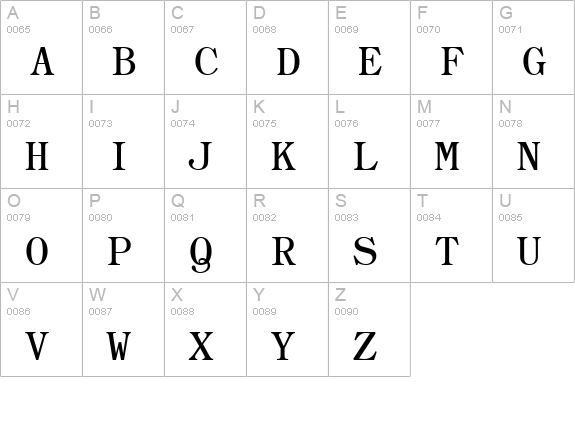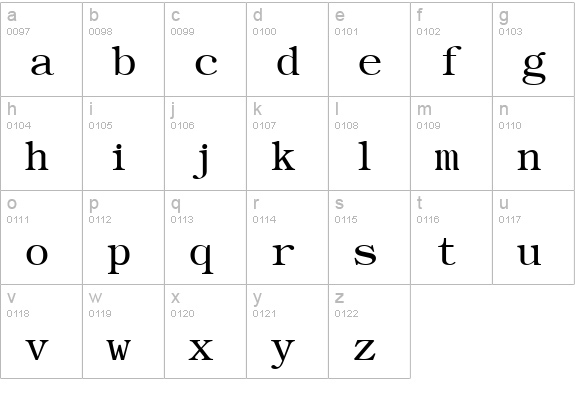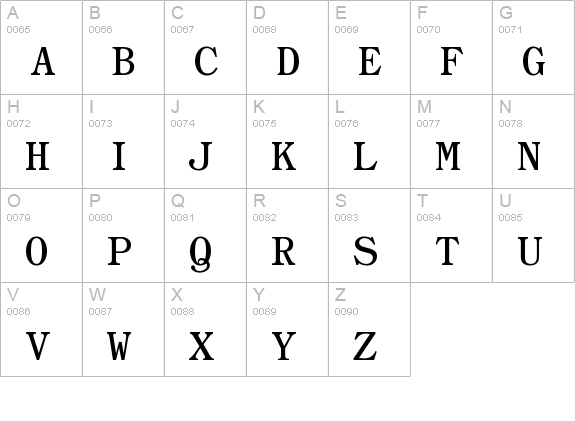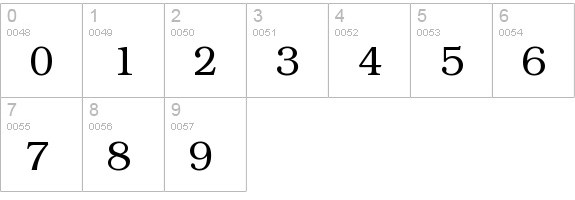
BookwomanMono LightSH Font Details
BookwomanMono LightSH is a modern and elegant monospaced font that exudes sophistication and professionalism. With its clean lines and minimalist design, this font is perfect for a wide range of projects, from branding to editorial design. The light weight of the font adds a touch of delicacy and refinement to any text. One of the best things about BookwomanMono LightSH is that it is available for free download at FontsMarket.com. This means that you can easily access this high-quality font without having to spend a dime. Whether you are a seasoned designer looking to add a new font to your collection or a beginner exploring typography for the first time, BookwomanMono LightSH is a great choice for all your design needs. Download BookwomanMono LightSH today from FontsMarket.com and elevate your projects with this stylish and versatile font.